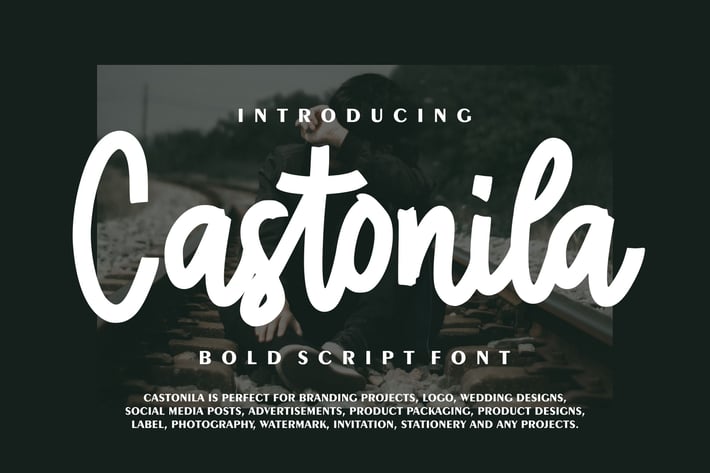
Castonila | Bold Script Font
Castonila | Bold Script Font with a calligraphy style, So beautiful on invitation like greeting cards, branding materials, business cards, quotes, posters, and more!